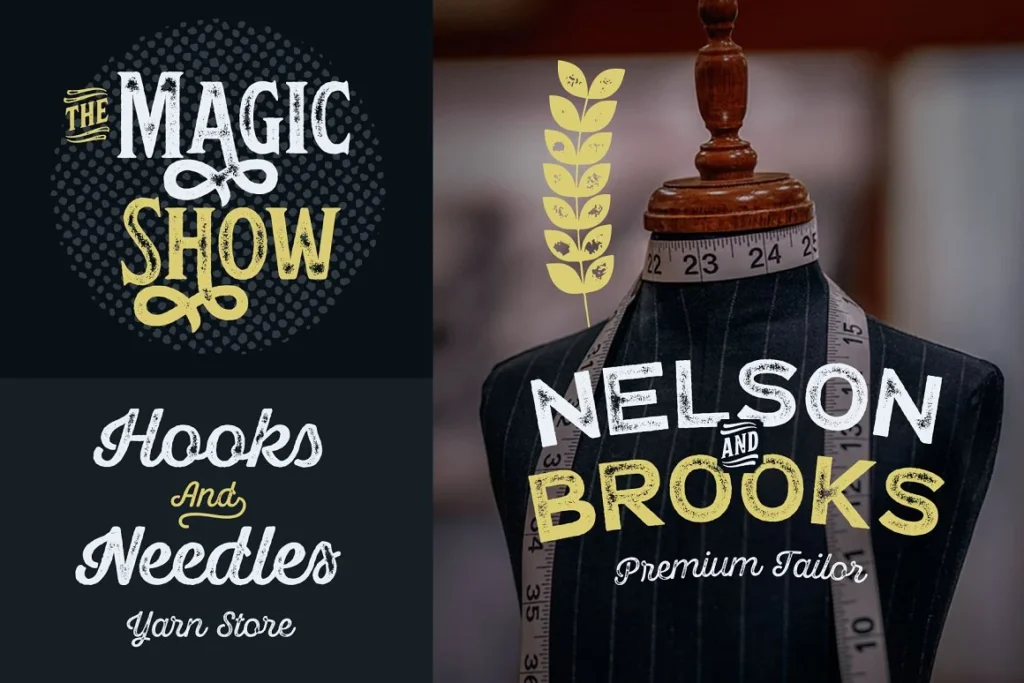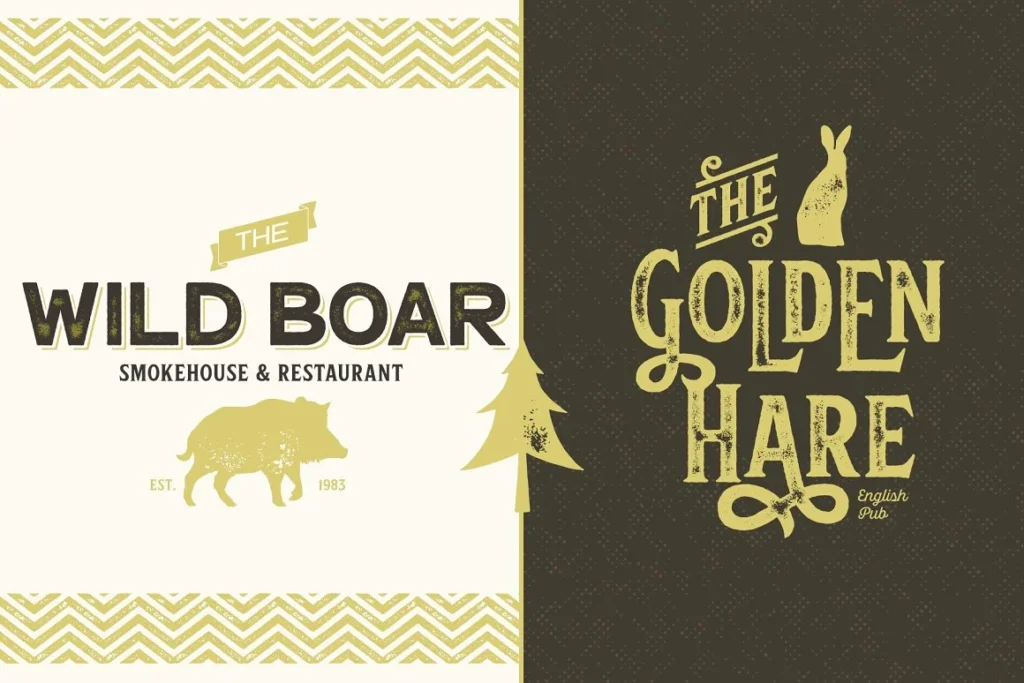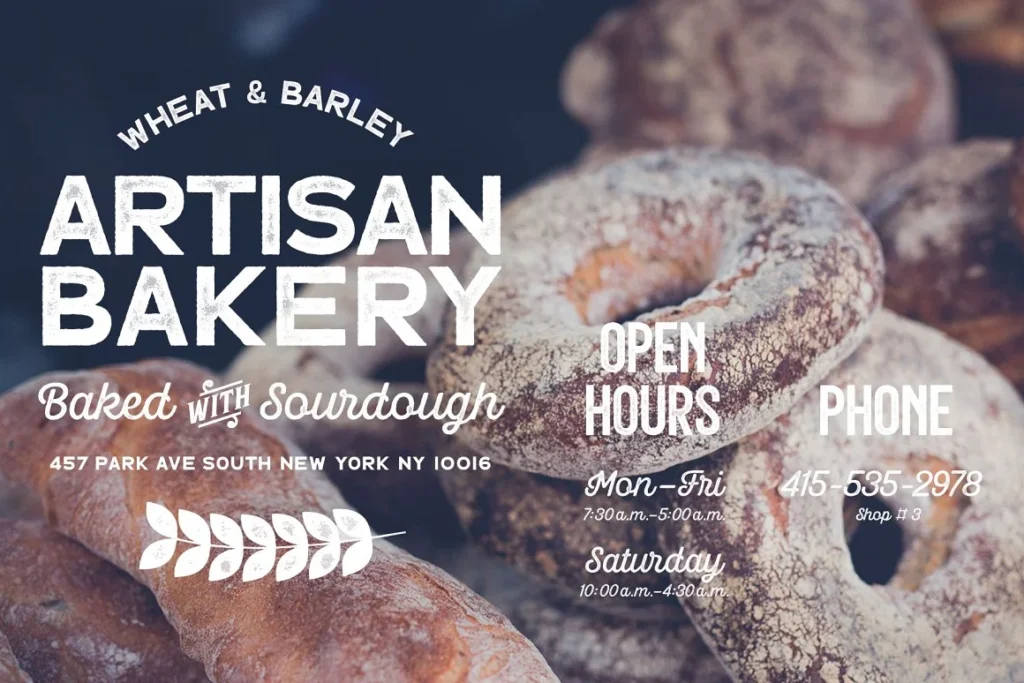
Hops Barley Font Collection text styles work incredibly together or all alone. They’re a fabulous decision for any presentation use and when matched, they can cover the entire showcase part in any venture, from site to bundling and from banner to logo.
Hops And Barleys’ center is four text style styles. Text styles are planned in similar extents and they have similar delicate edges so they work extraordinary together.
Here is a short prologue to the fontsHops and Grain text styles have rough framework and dissolved surface inside the letters.